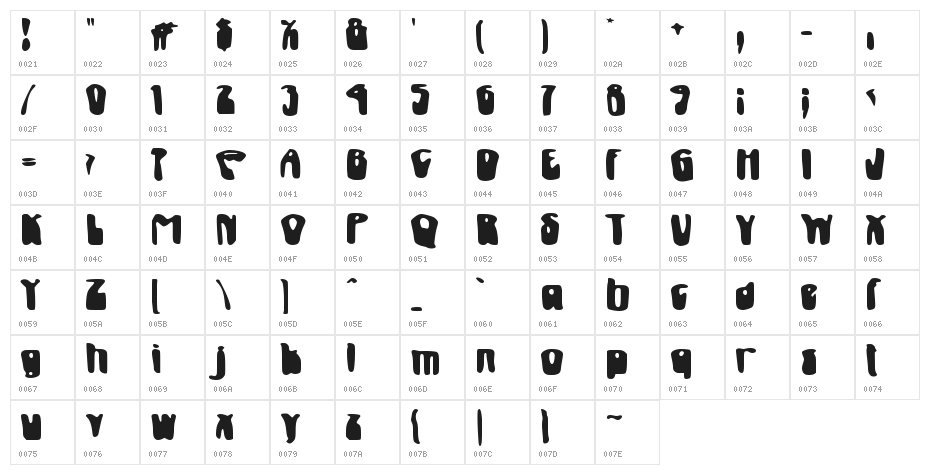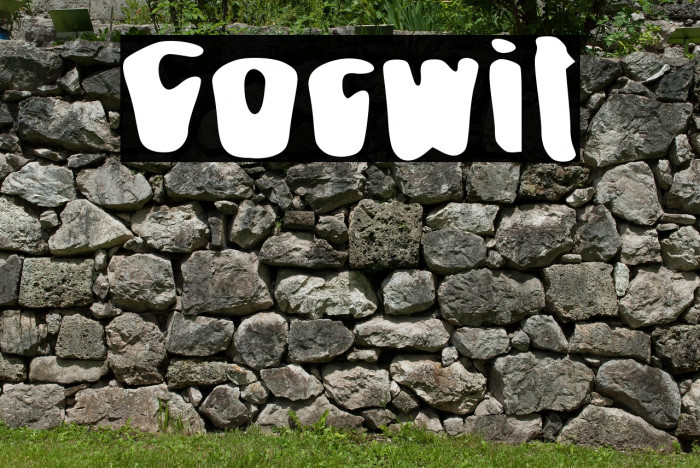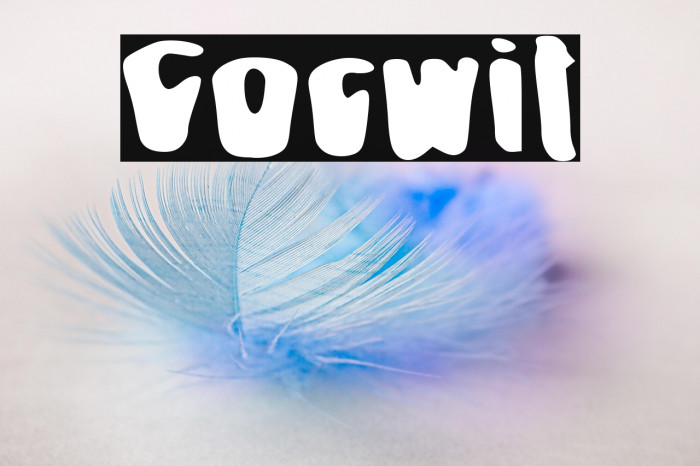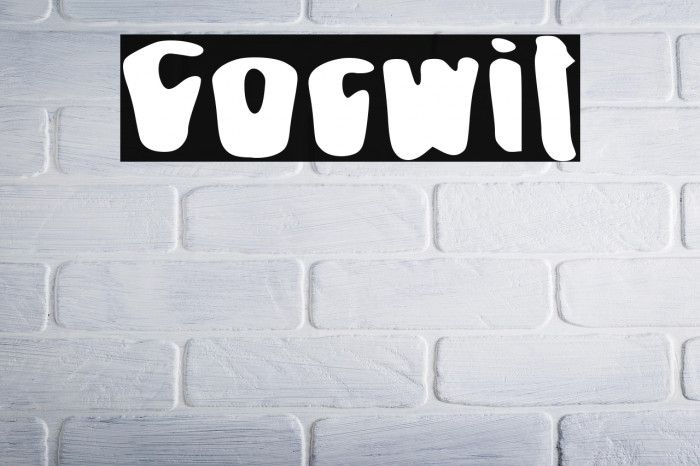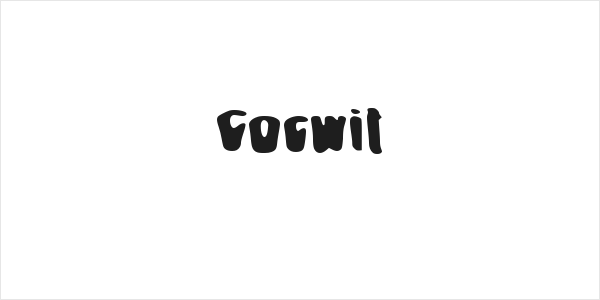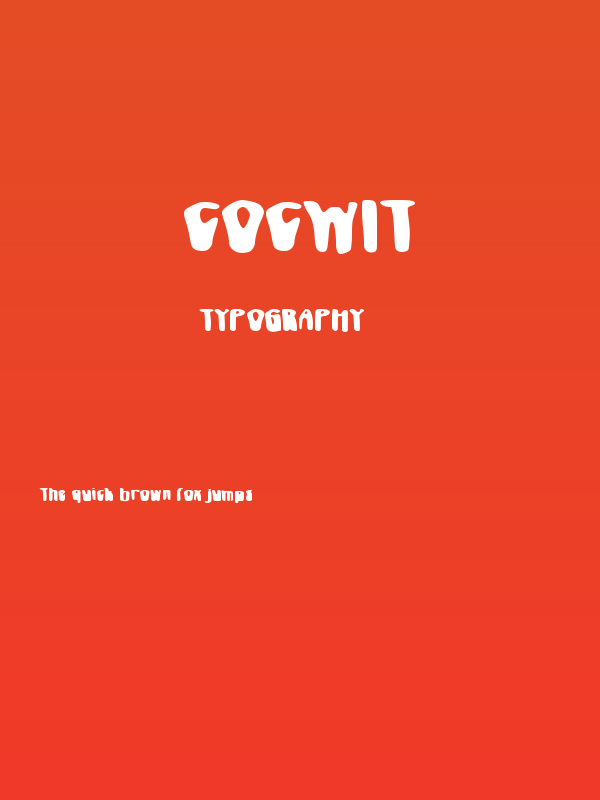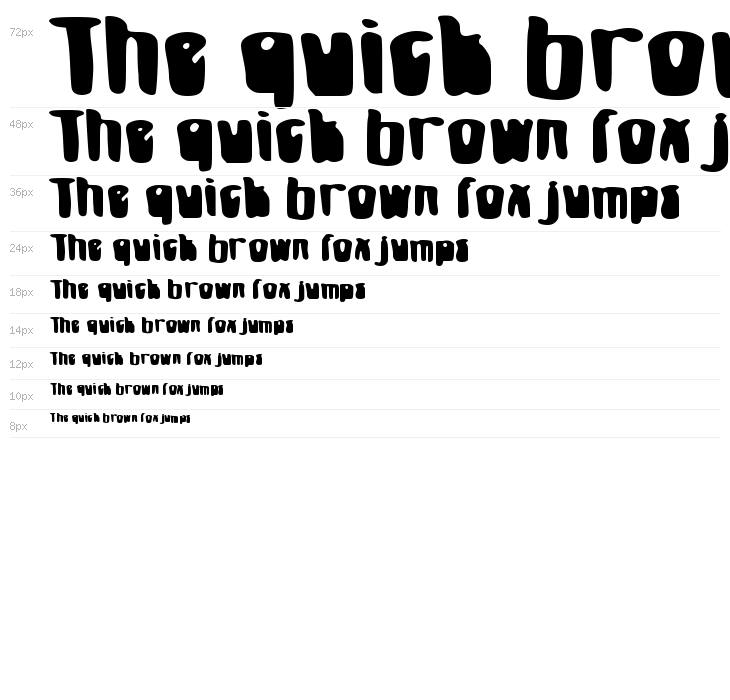
Cocwit Font
Cocwit Description
This font features a bold and playful design with thick, rounded characters that convey a sense of fun and creativity. The letters have a unique, almost cartoonish appearance, with exaggerated curves and a slightly uneven baseline that adds to its whimsical charm. The numbers and special characters maintain this playful style, ensuring consistency across all elements. Its boldness and distinctive look make it stand out, making it ideal for projects that require a touch of humor and personality.
| Overall Style | Playful, Whimsical |
| Proposed Projects | Perfect for children's books, playful branding, posters, and creative advertisements. |